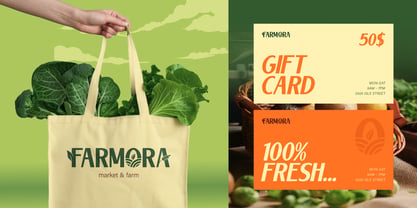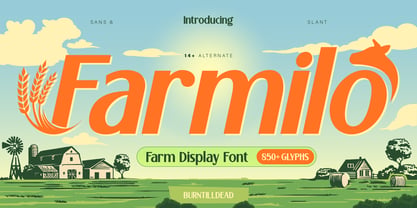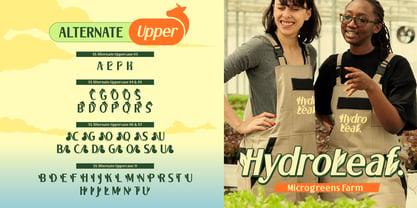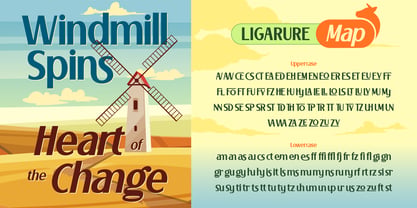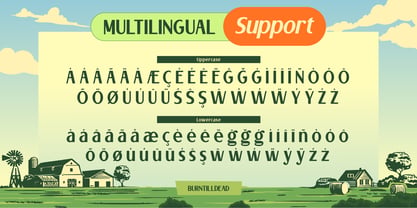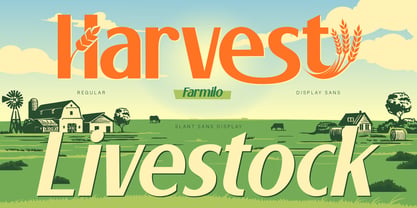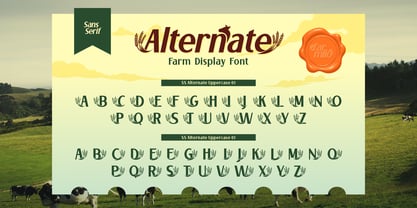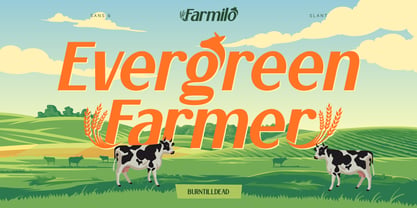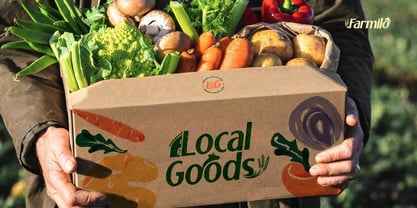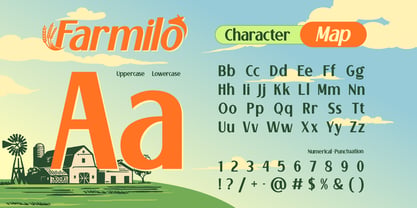
Farmilo
by Burntilldead
The Farmilo Font Family was designed by Eric Kurniawan and published by Burntilldead. Farmilo contains 2 styles and family package options. More about this family
Farmilo is a fresh and friendly display font inspired by the beauty of countryside life and agricultural landscapes. Designed with a clean sans-serif structure and a subtle slanted style, this font brings a perfect balance between modern simplicity and rustic charm. What makes Farmilo stand out is its unique personality. The letterforms are smooth, bold, and easy to read, while the carefully crafted alternates add a playful touch, featuring elements inspired by farming such as wheat and organic curves. This makes your designs feel more alive, warm, and naturally engaging. Farmilo comes in two styles: Regular, which is clean, stable, and highly readable, and Slant, which feels more dynamic, stylish, and expressive. This font is perfect for a wide range of projects, especially those related to farm and agriculture branding, organic food packaging, local markets and grocery designs, eco-friendly products, restaurant and café branding, as well as logo design, posters, social media, and merchandise.
Designers: Eric Kurniawan
Foundry: Burntilldead